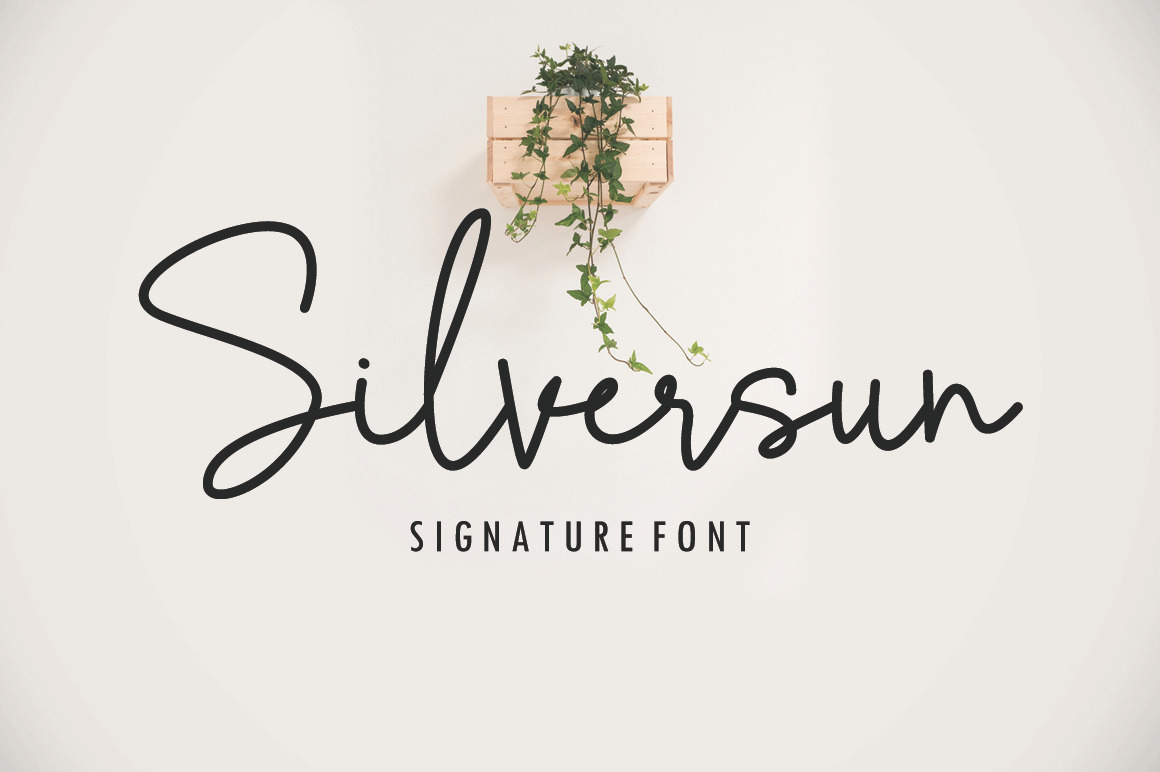
Silversun Script Font
Silversun is a signature Script Font. Silversun is a great font. each letter is shaped like a natural handwriting that dances like a thin pen stroke, looks natural and neat. It contains uppercase, lowercase, number, punctuation and symbols. Silversun is perfect for branding, logos, wedding designs, greeting cards, photography, inspirational quotes, illustration, magazine, advertisements, invitations, product designs, labels, promotional material, handwritten quotes, product packaging, stationery, social media posts, and invitations.